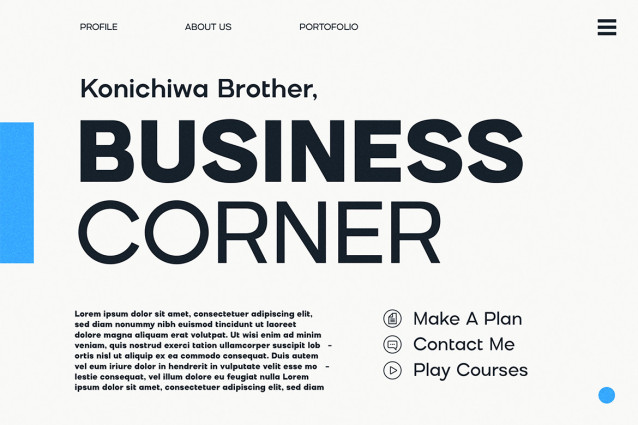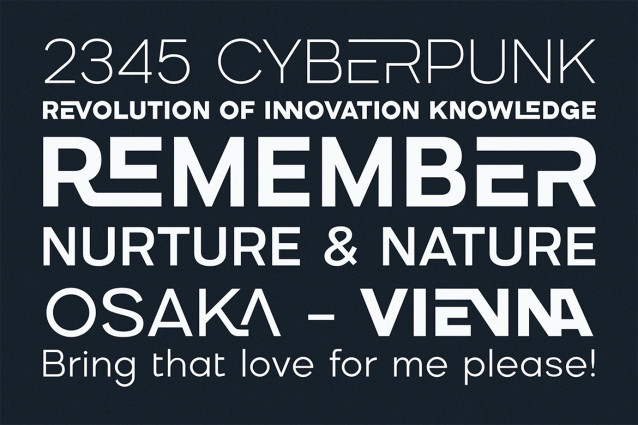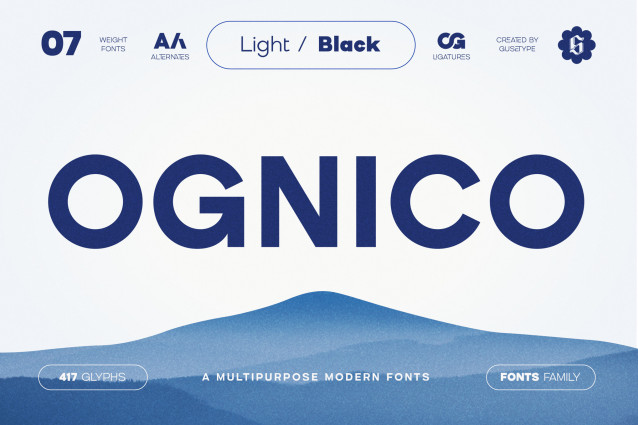
Ognico Font
Ognico Font is a modern and futuristic sans-serif typeface designed for versatility and impact. Characterized by its clean geometric structure and carefully balanced proportions, it offers exceptional legibility across a range of sizes. This font family includes Light, Regular, Medium, Bold, Semi-Bold, Extra Bold, and Black, providing a comprehensive toolkit for projects such as logo design, branding, posters, magazines, album covers, and much more. Ognico is an ideal choice for projects seeking a contemporary and technologically advanced look.